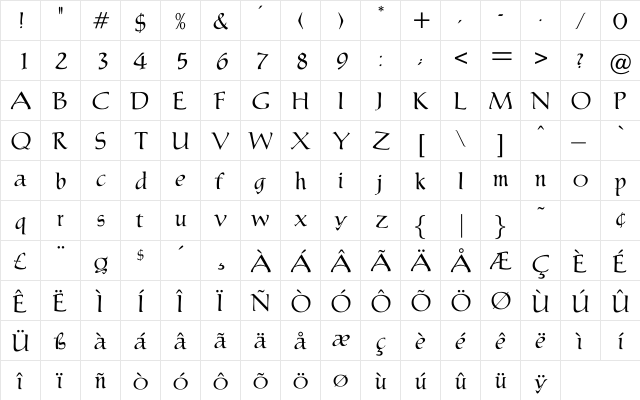
Marsdale Regular
Design Context for Marsdale Typeface
Marsdale takes a measured approach to typography — its balanced proportions and neutral character make it a reliable workhorse for both digital and print work.
Pro Tip: Use Marsdale in both headline and body roles to test its range before committing to a single application.